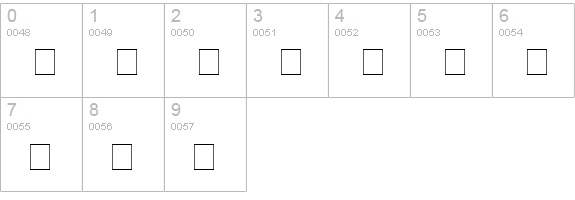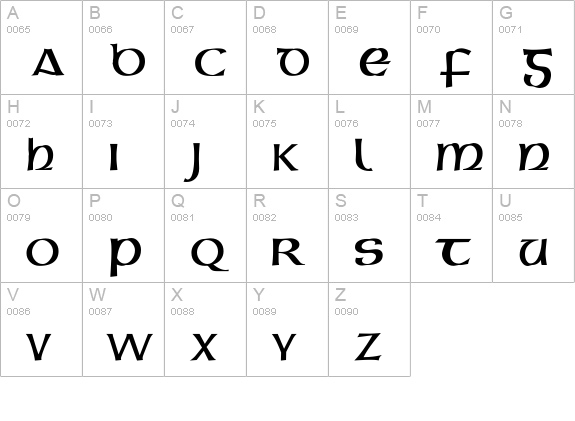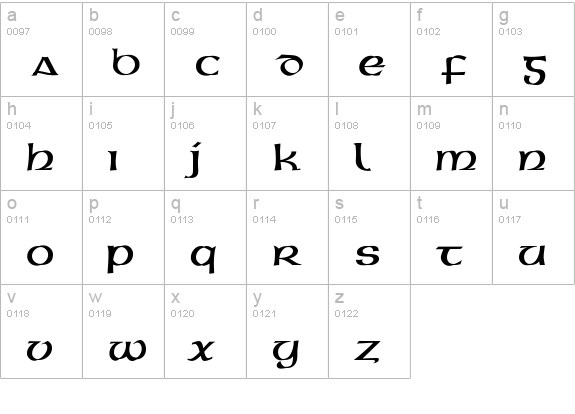
Gaeilge 1 Normal Font Details
Gaeilge 1 Normal is the standard, neutral variant in the Gaeilge typeface family \xE2\x80\x94 well suited to general body text, paragraphs, and standard typographic work.
Gaeilge 1 Normal is a stunning and versatile font that brings the beauty of the Irish language to life. With its elegant curves and graceful strokes, this font captures the essence of traditional Gaelic calligraphy while maintaining a modern and legible appearance. Designed with the utmost care and attention to detail, Gaeilge 1 Normal is perfect for any project that requires a touch of Celtic charm. Whether you're designing a logo, creating a wedding invitation, or crafting a beautiful piece of artwork, this font will add a sense of authenticity and cultural richness. One of the best parts about Gaeilge 1 Normal is that it is freely available to download at FontsMarket.com. You don't have to worry about any licensing fees or restrictions - simply visit the website and start using this incredible font in your designs today. With Gaeilge 1 Normal, the possibilities are endless. Let your creativity soar as you explore the countless ways this font can enhance your projects. Whether you're a professional designer or a passionate enthusiast, Gaeilge 1 Normal is a must-have addition to your font collection. Don't miss out on this opportunity to bring the beauty of the Irish language to your designs. Download Gaeilge 1 Normal for free at FontsMarket.com and watch as your creations come to life with a touch of Celtic magic.